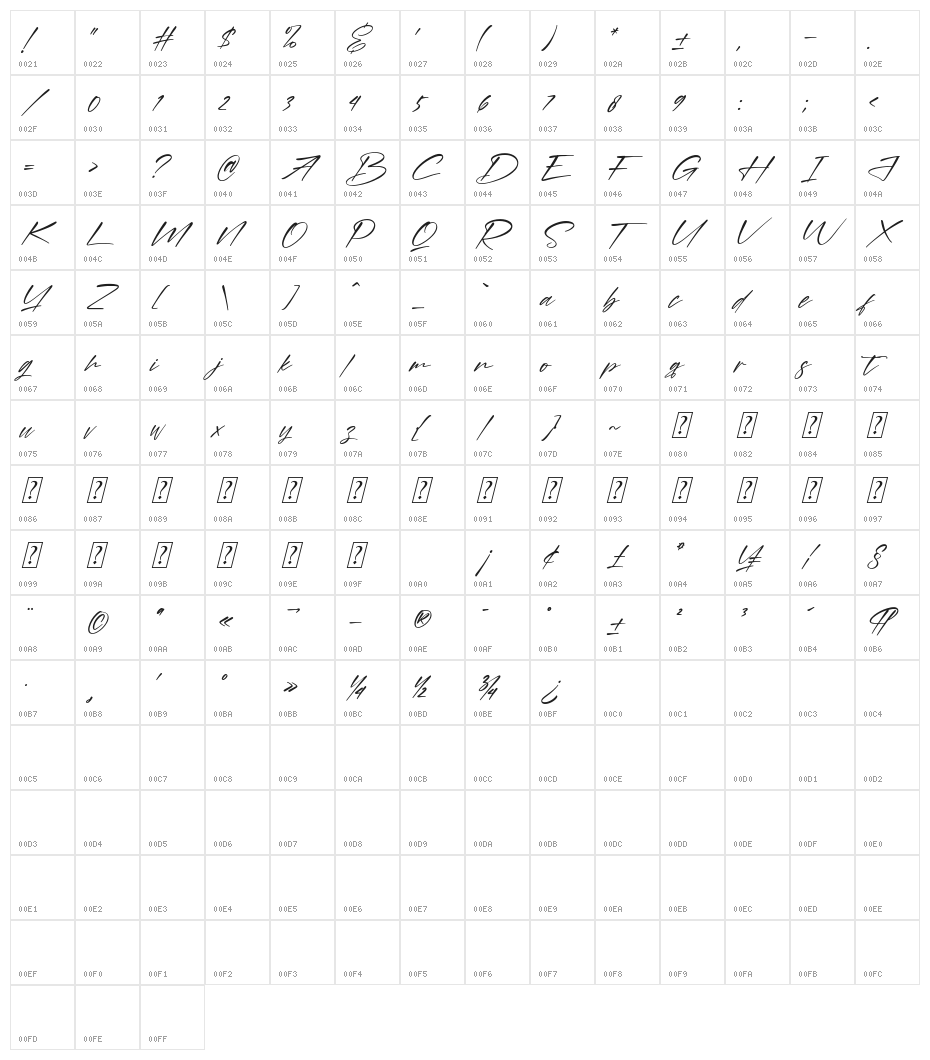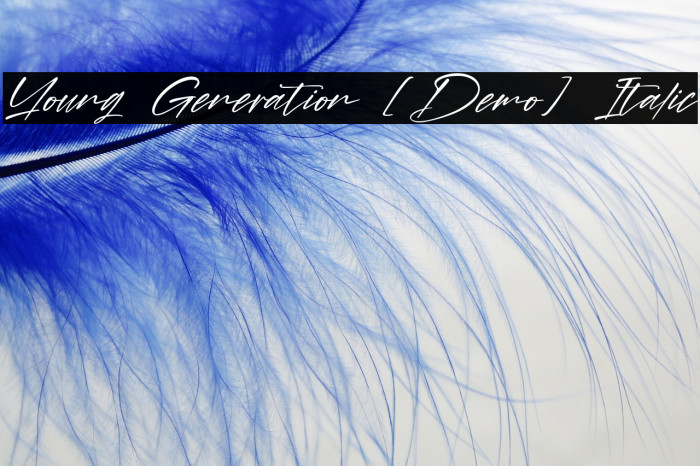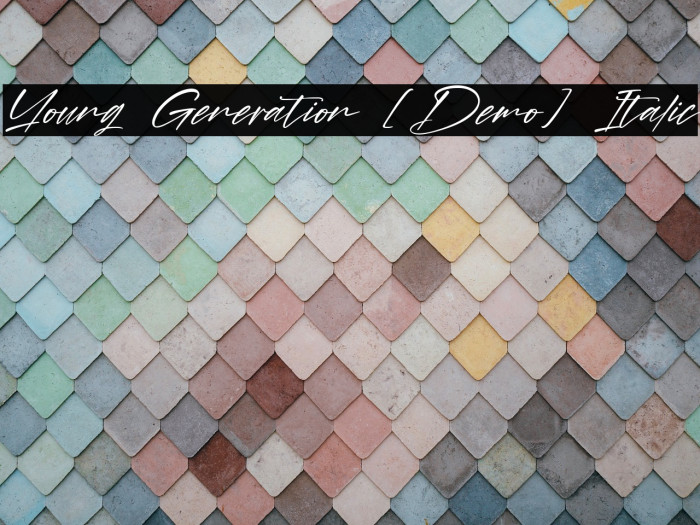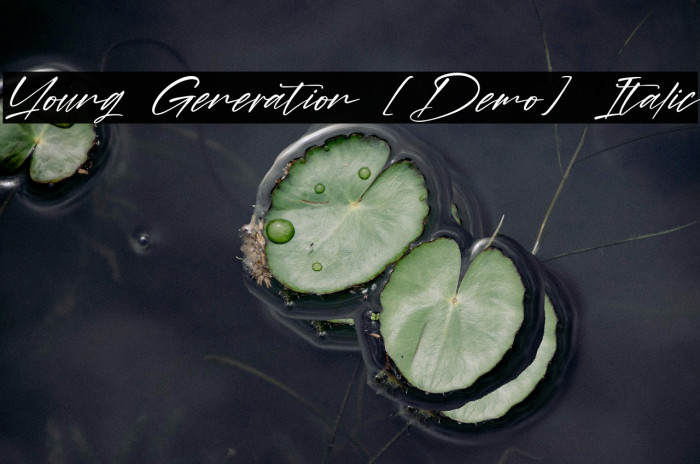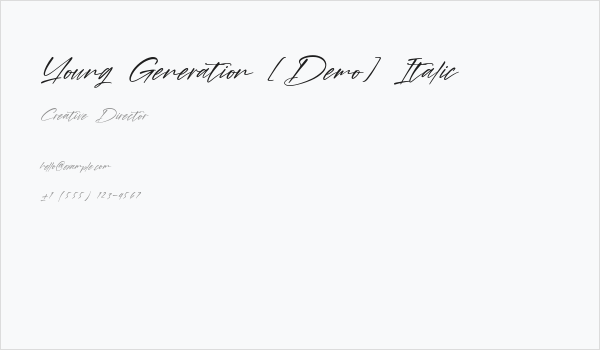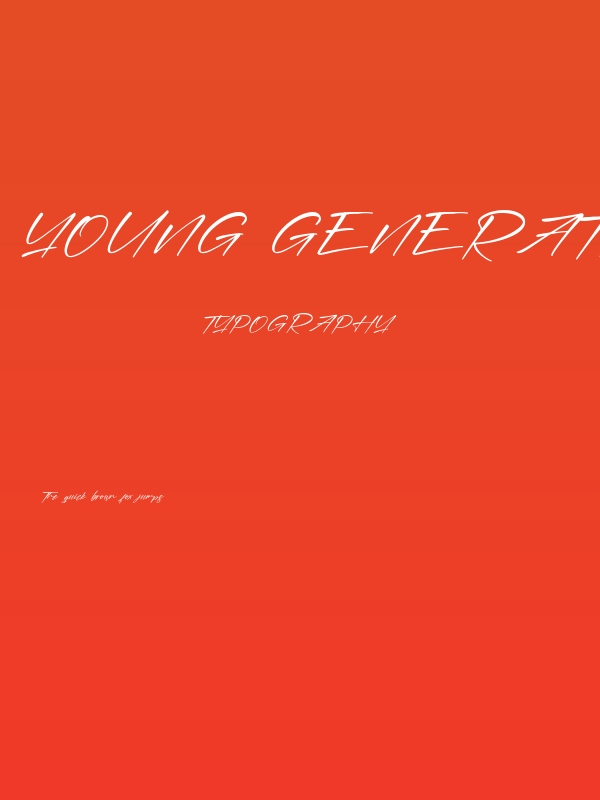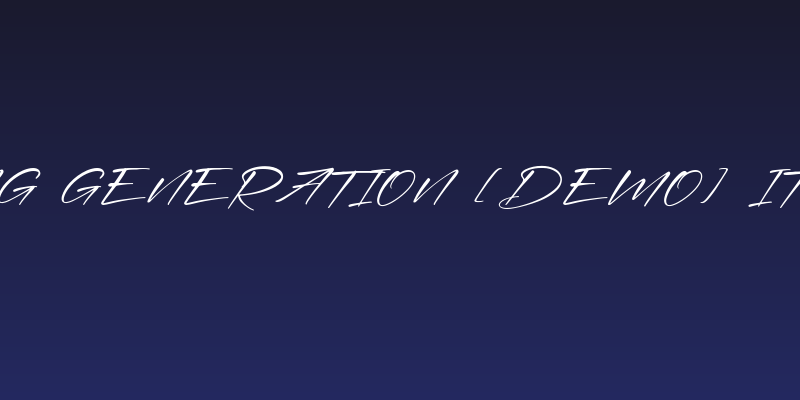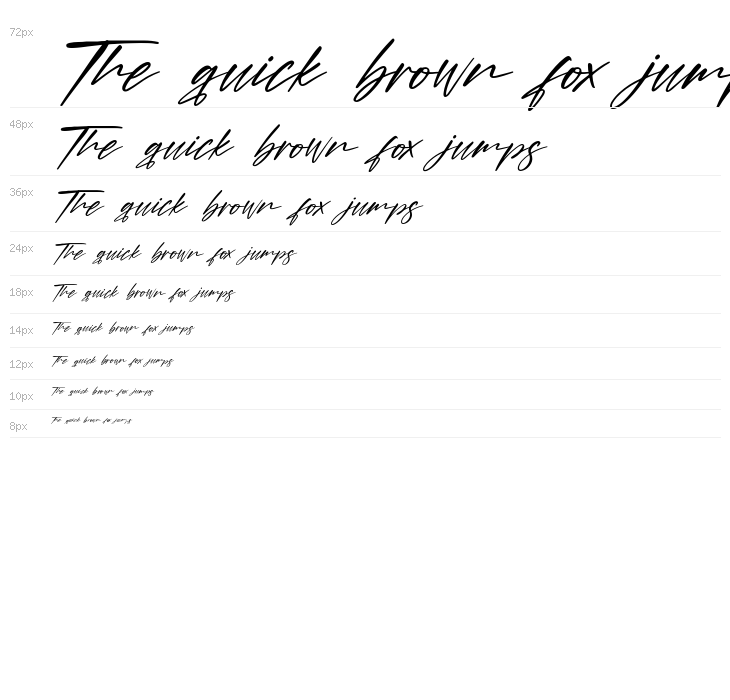
Young Generation [Demo] Italic Font
Young Generation [Demo] Italic Description
This font exhibits a dynamic and fluid script style, characterized by its elegant and flowing cursive letters. The strokes are smooth and connected, giving it a handwritten appearance that is both sophisticated and approachable. The uppercase letters are slightly more formal, while the lowercase letters maintain a casual flair. Numbers and special characters are seamlessly integrated, maintaining the overall aesthetic. The italic slant adds a sense of motion and grace, making it suitable for creative and expressive designs.
| Proposed Projects | Ideal for wedding invitations, personal branding, greeting cards, and artistic projects that require a personal touch. |